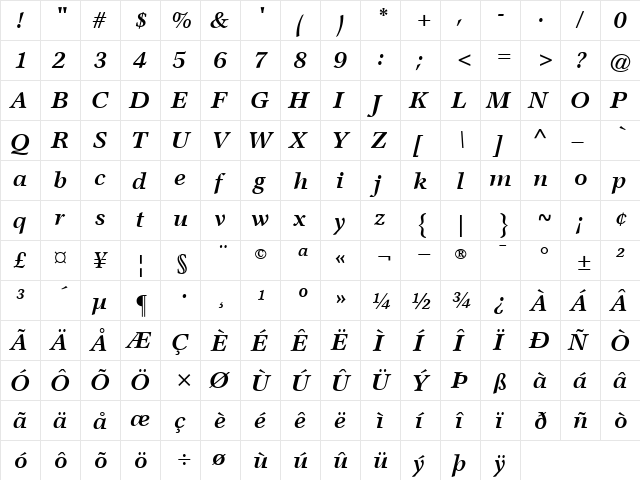
GarthGraphic BoldItalic
Design Context for GarthGraphic Typeface
GarthGraphic is a composed and adaptable typeface that performs quietly and consistently across a wide range of design contexts. The slanted form adds forward momentum and visual energy. The heavy weight commands attention and anchors typographic hierarchies.
Pro Tip: Try GarthGraphic for annotation and caption copy alongside an upright companion — the contrast in angle creates a dynamic but ordered typographic system.